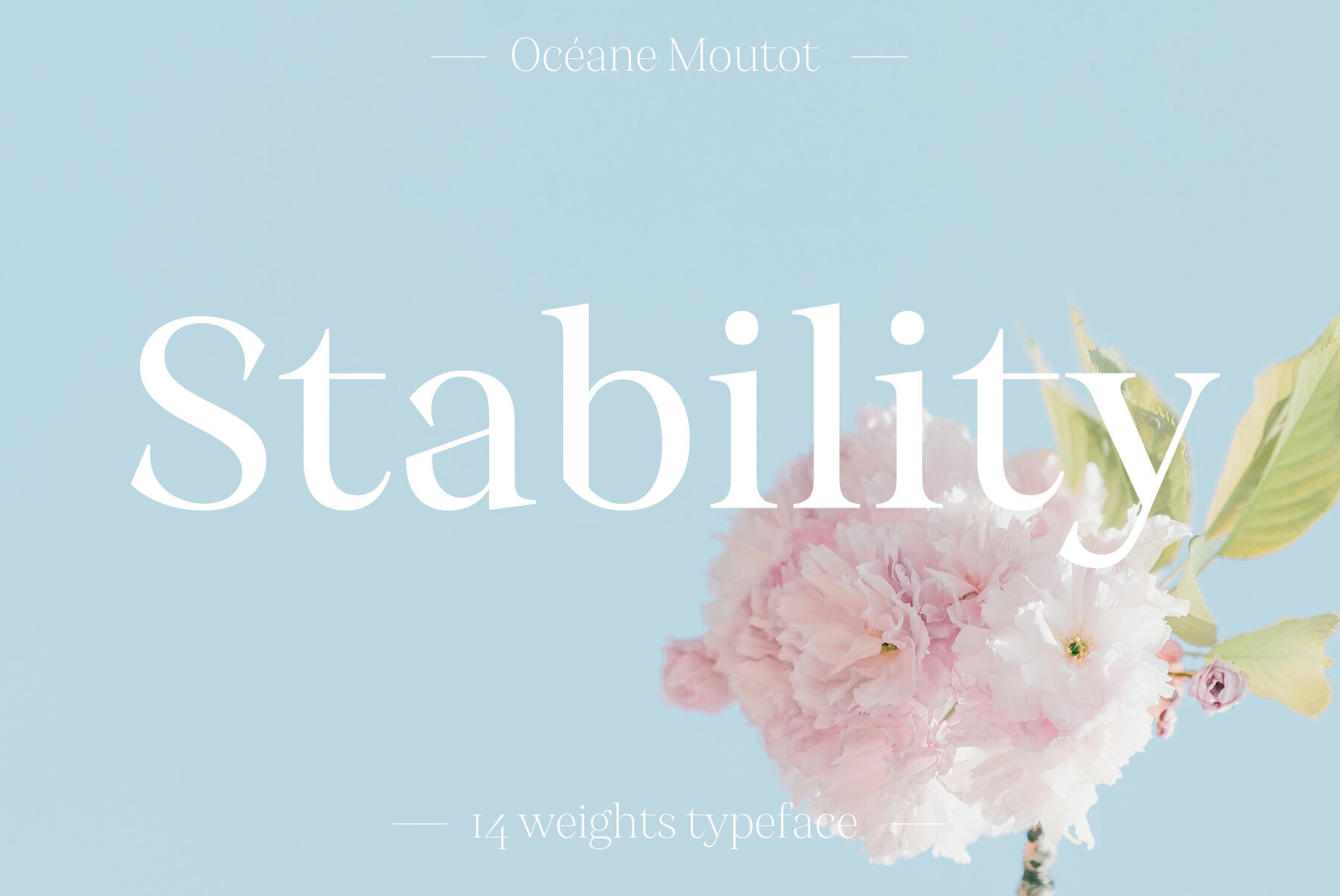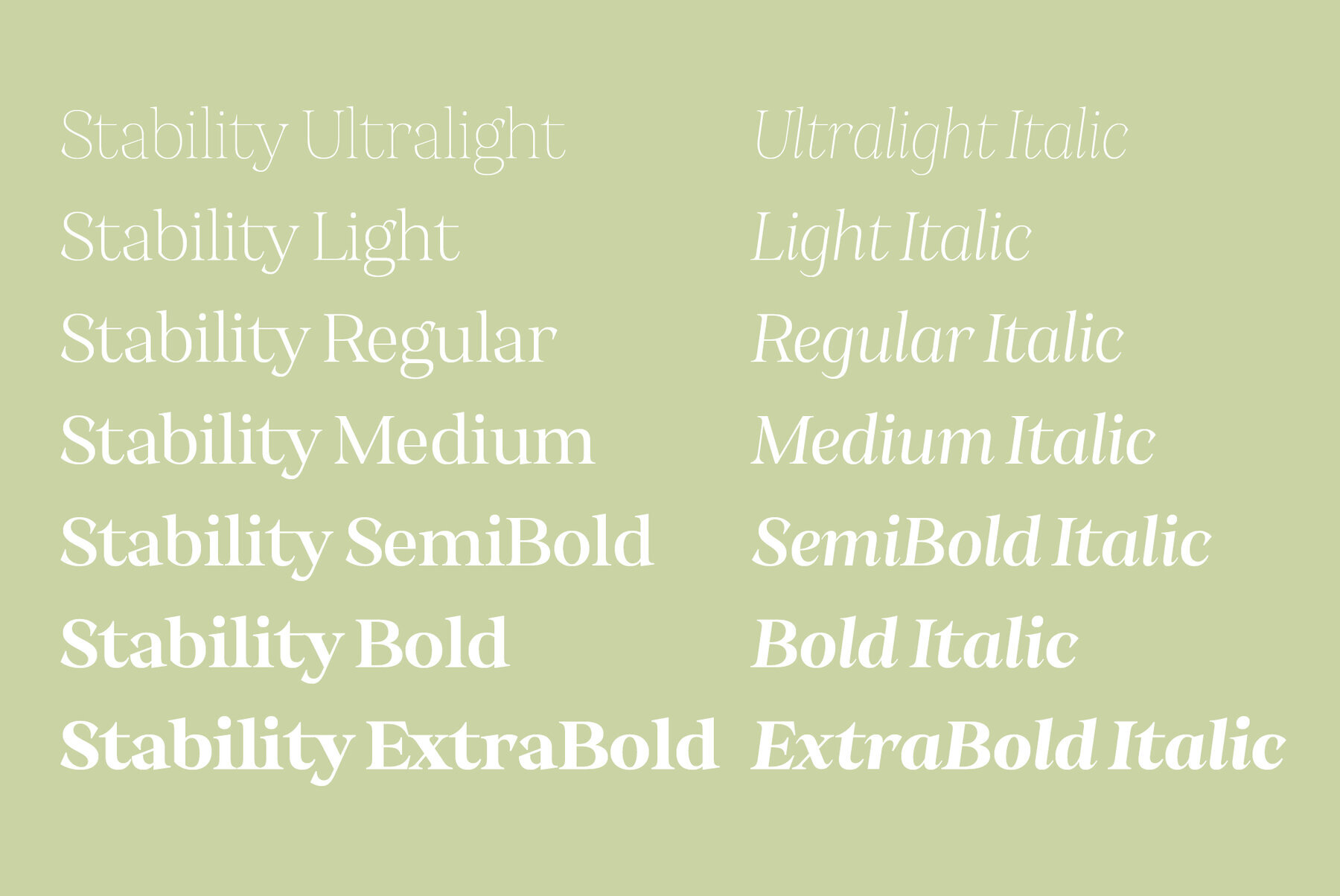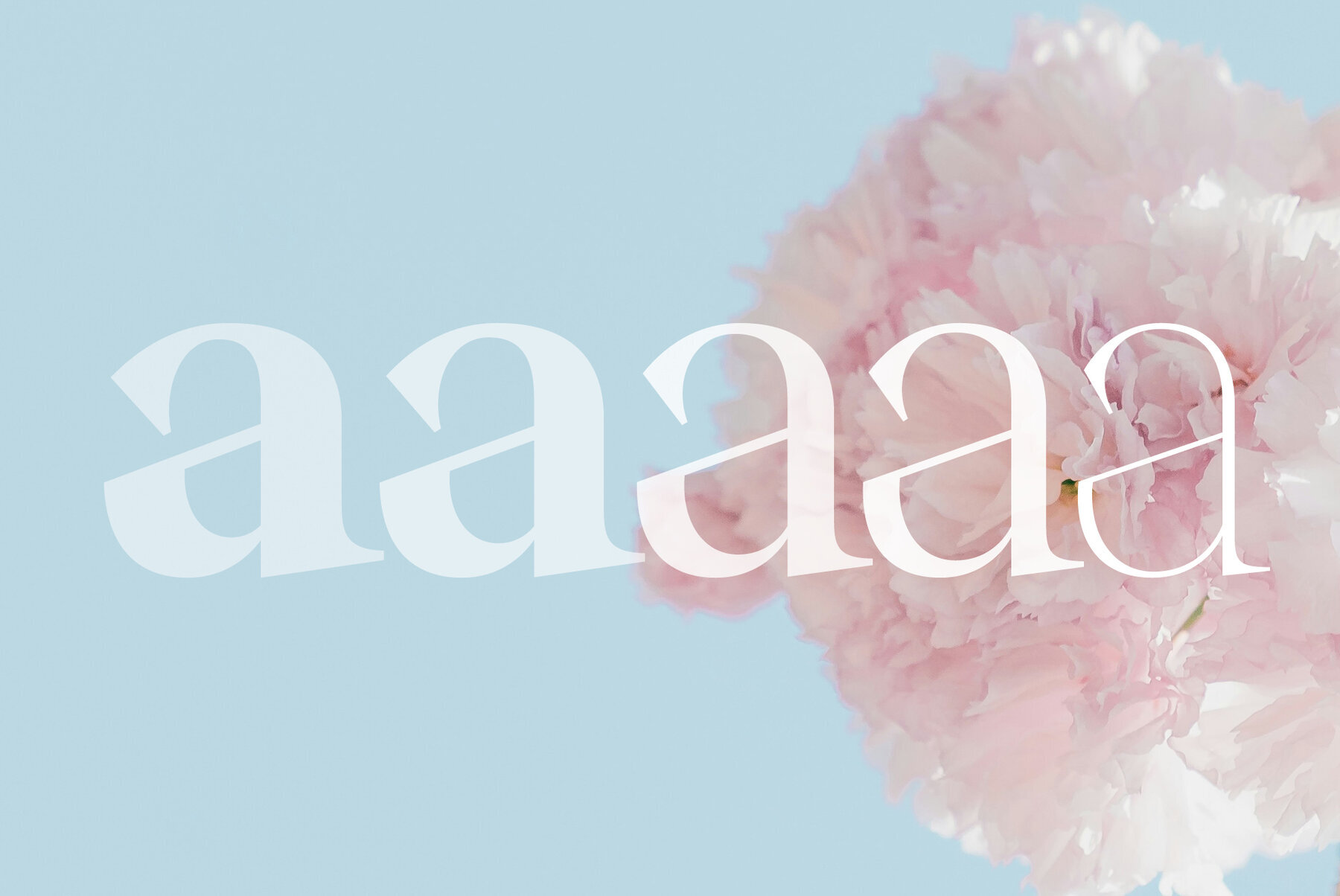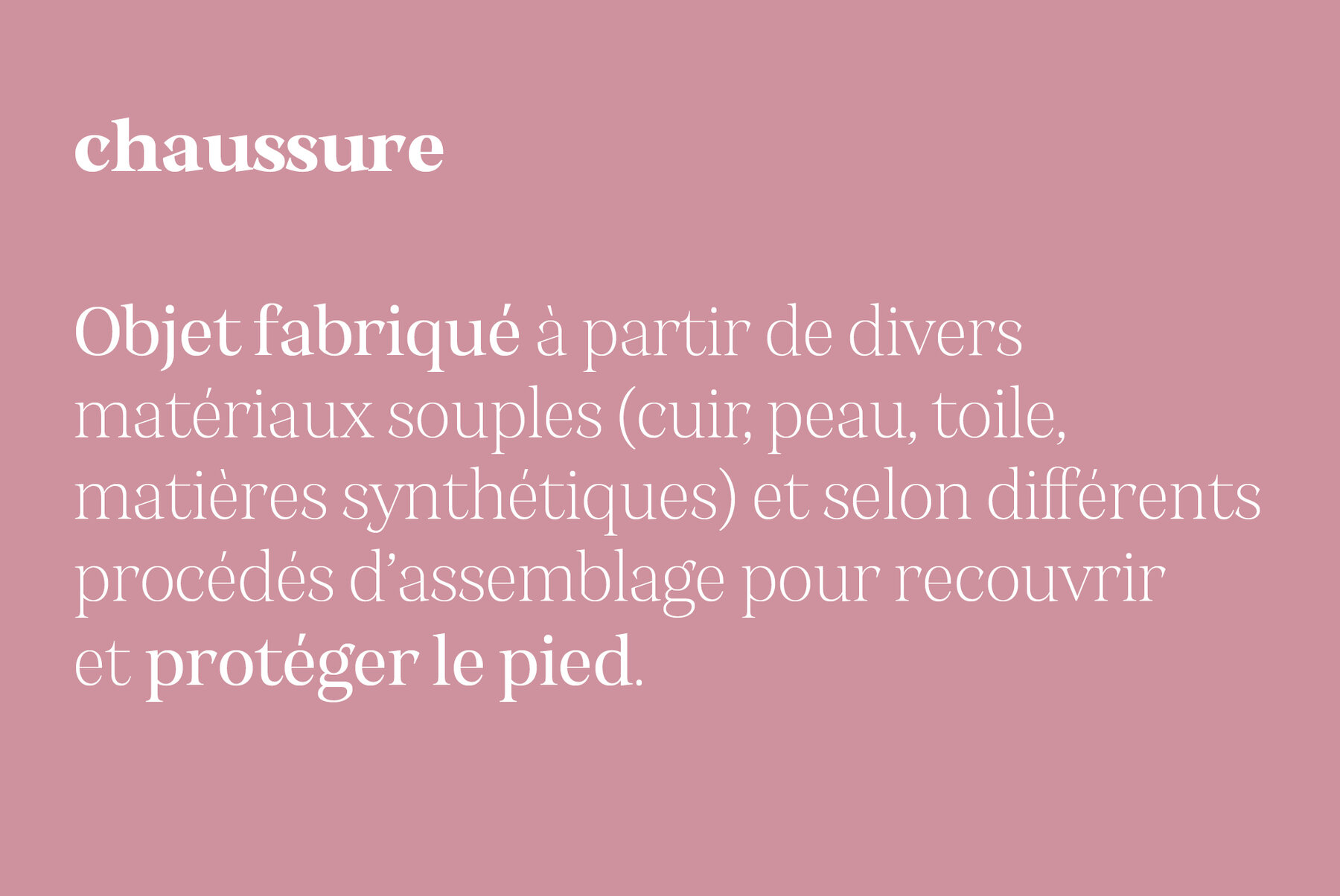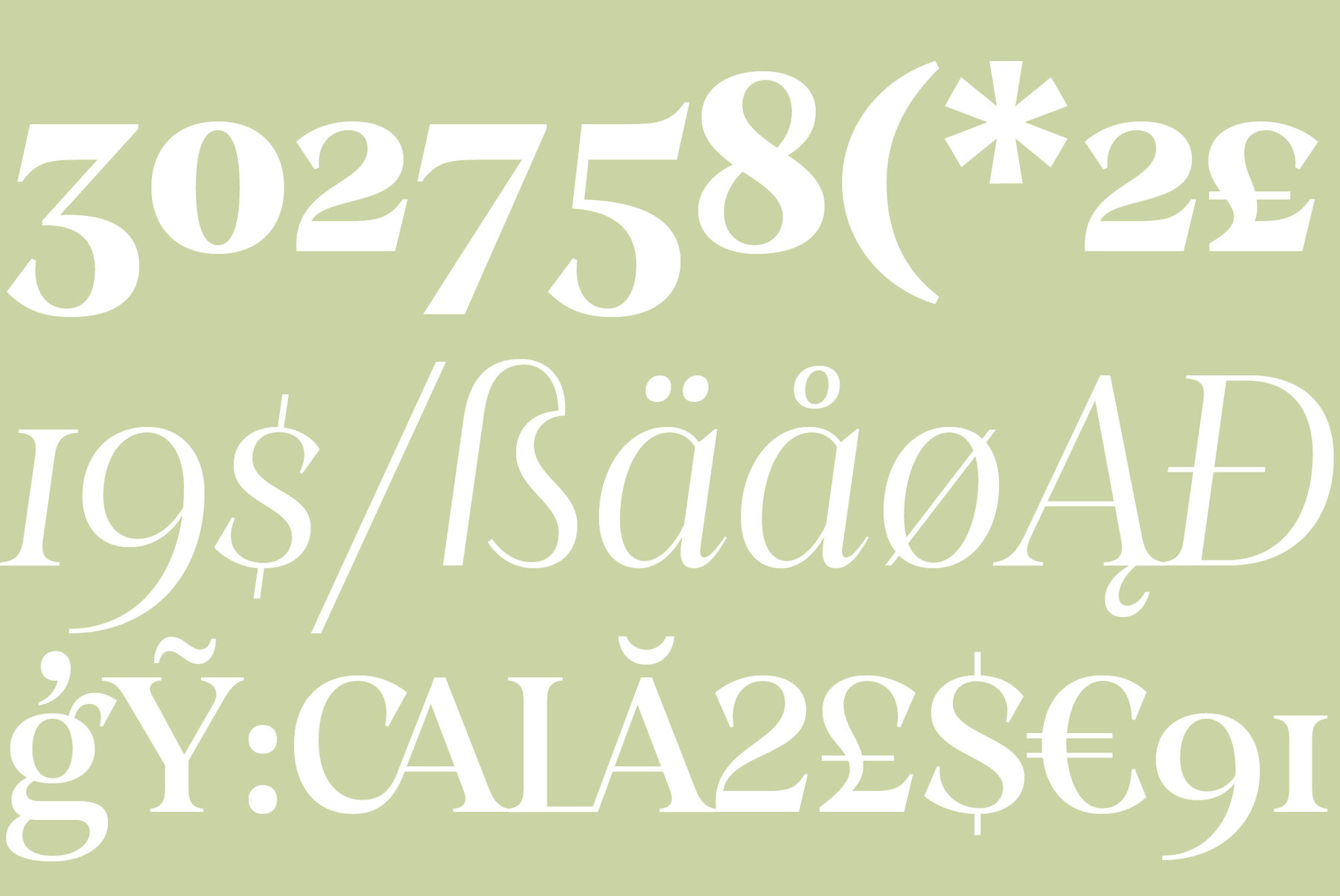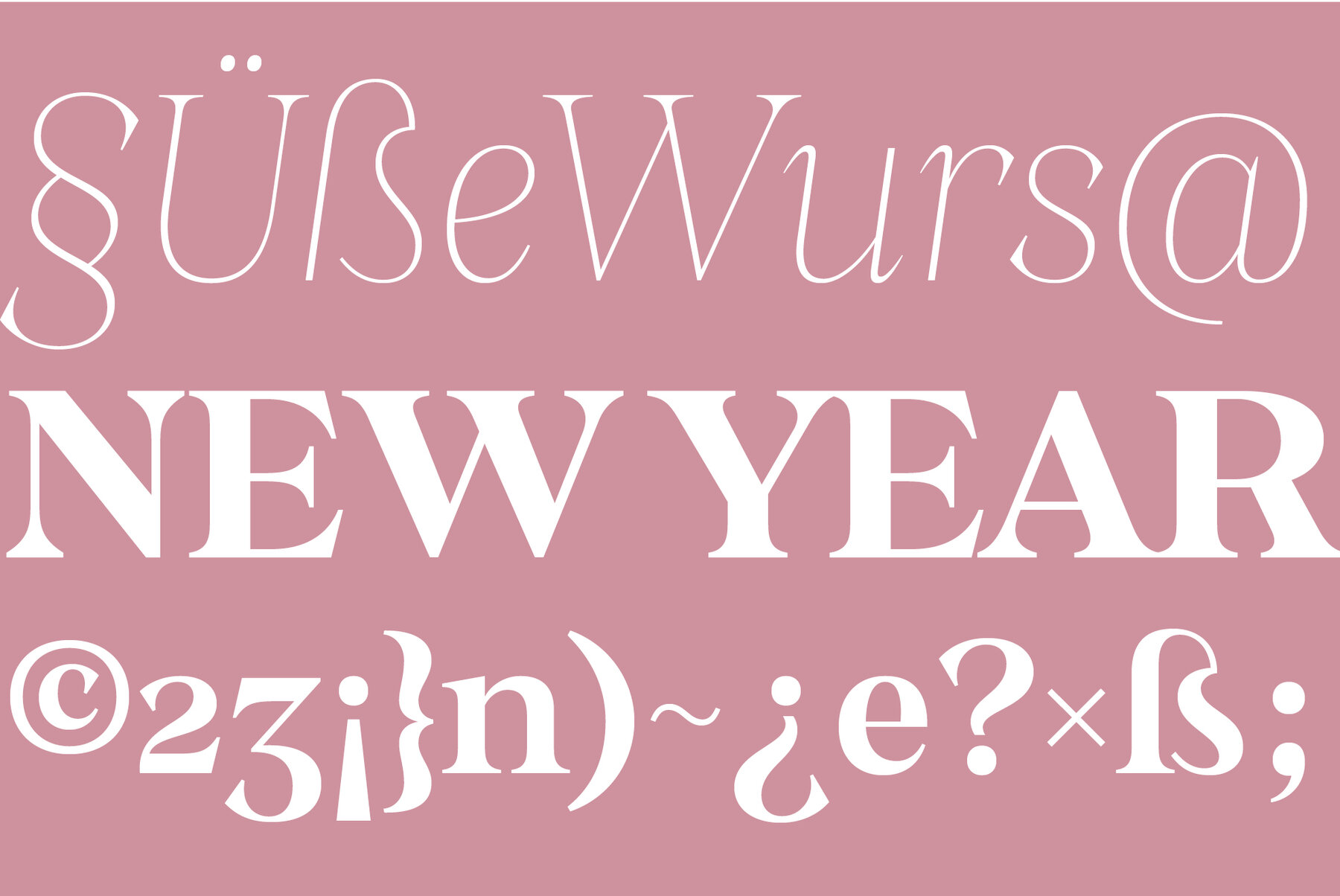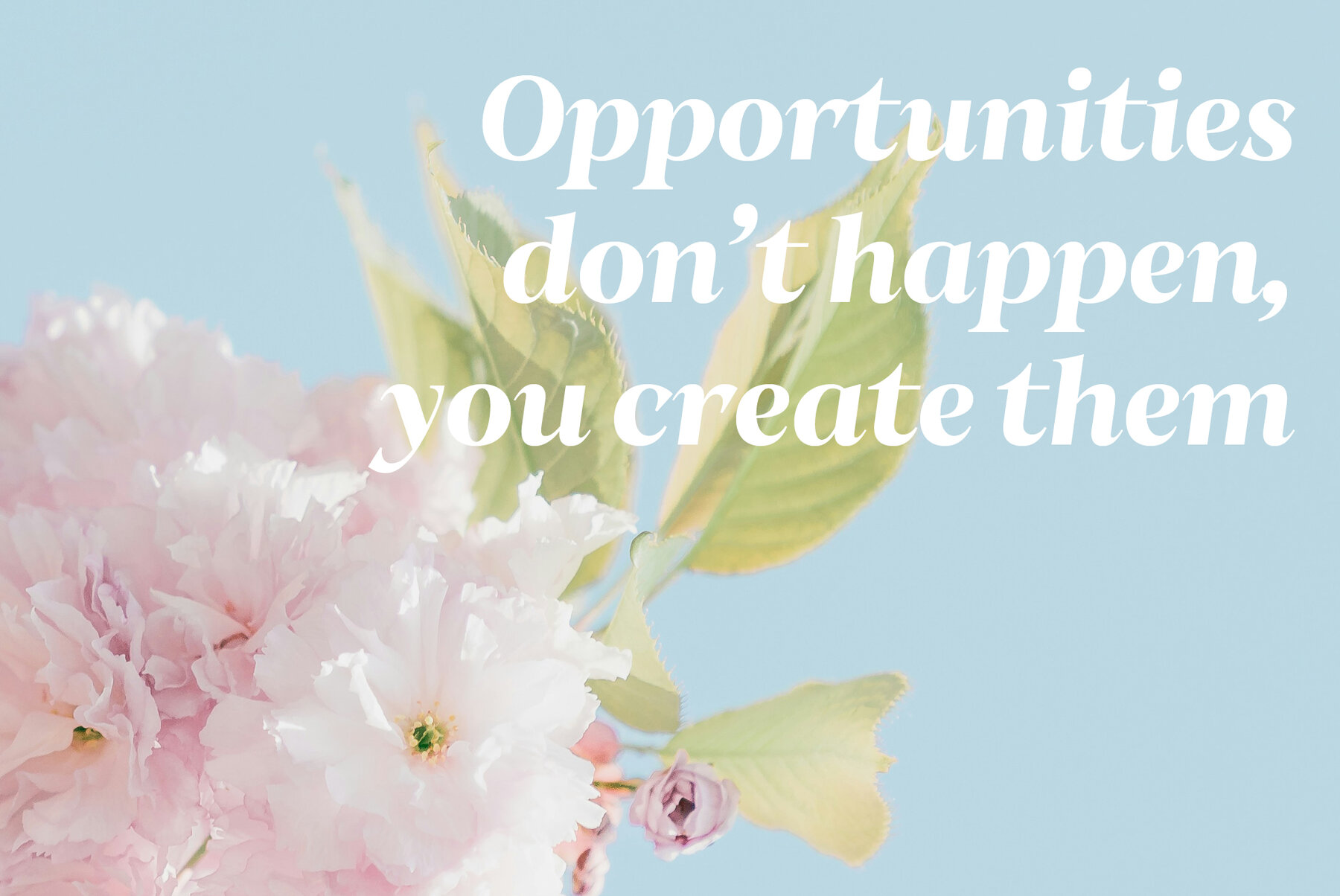
Stability Font
Stability is an elegant and soft serif typeface, distinguished by its gentle curves, smooth serifs, and refined structure. Designed to evoke a sense of calm and sophistication, it blends subtle grace with a few livelier strokes that add personality without disrupting its overall harmony. This balance makes it ideal for editorial design, book covers, branding, and any project that calls for a warm yet polished typographic voice. Stability is available in 14 styles, ranging from Thin to Bold, with both Roman and Italic variations. It offers flexibility and charm, ensuring readability while bringing a touch of elegance to your designs.